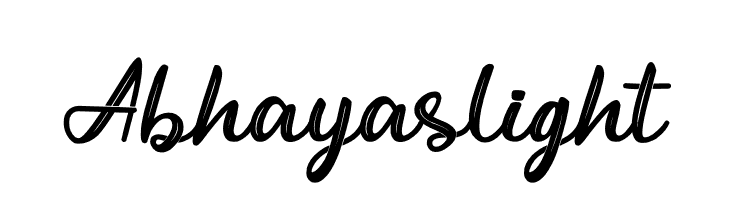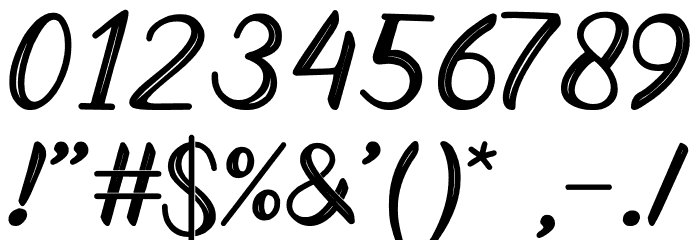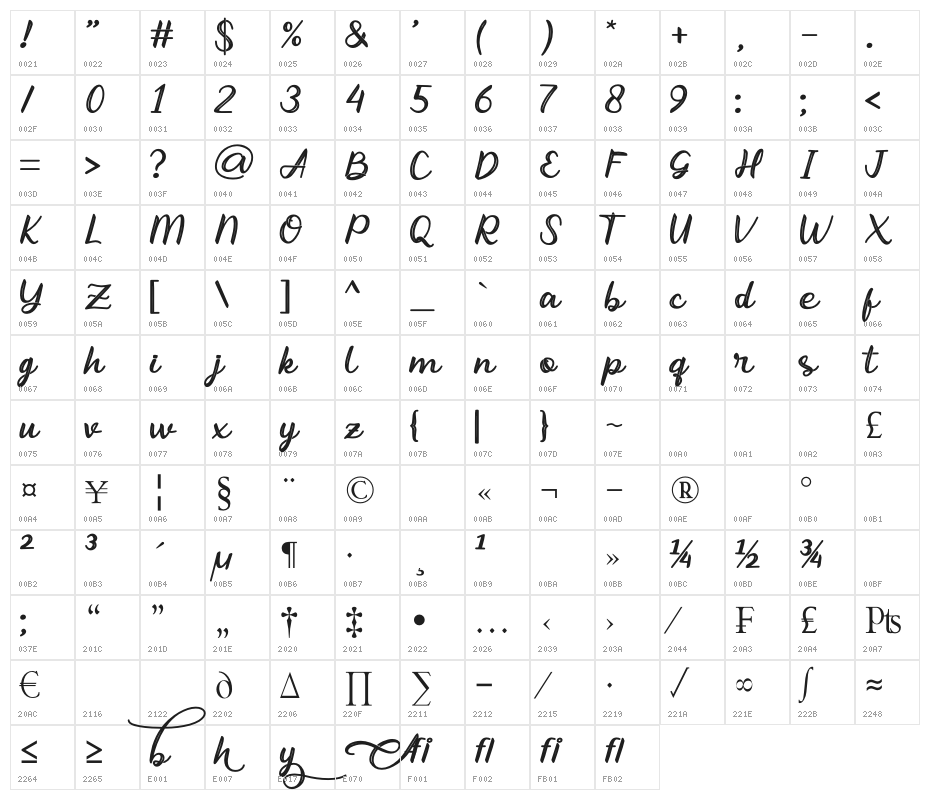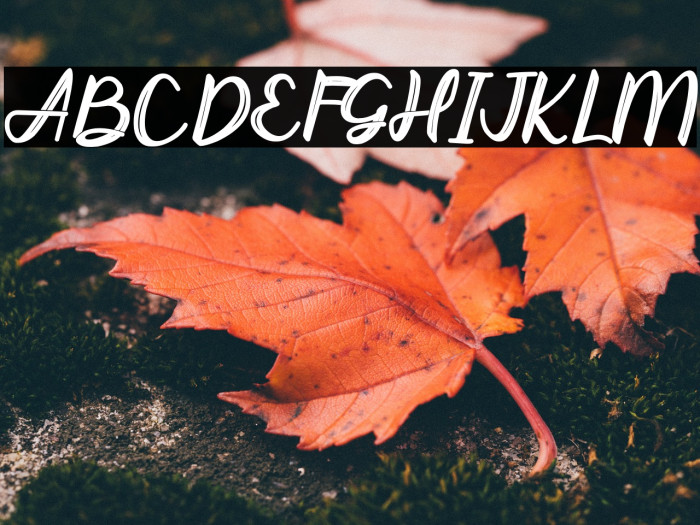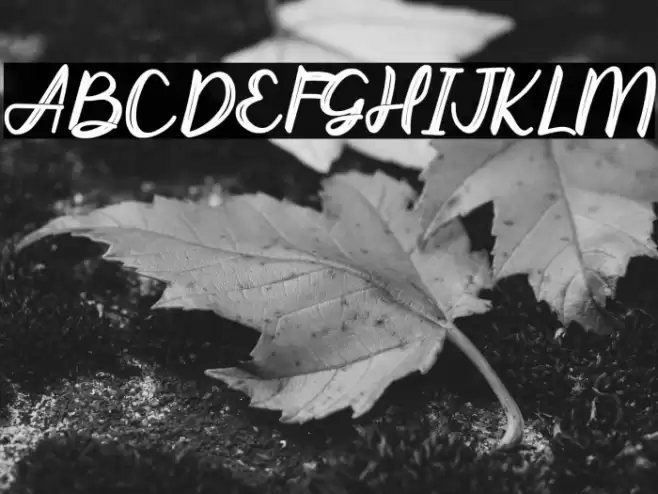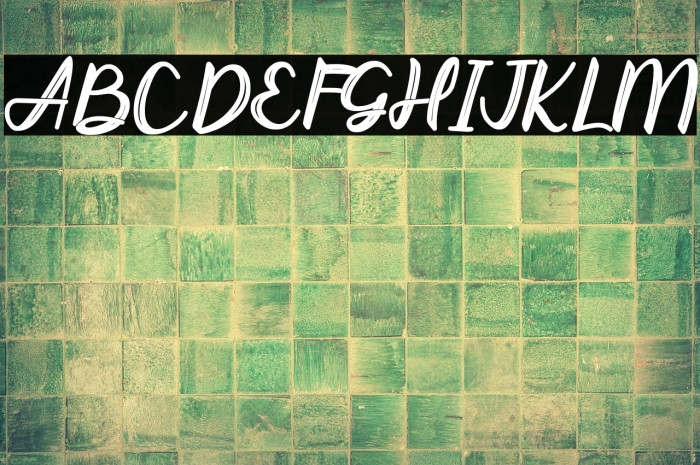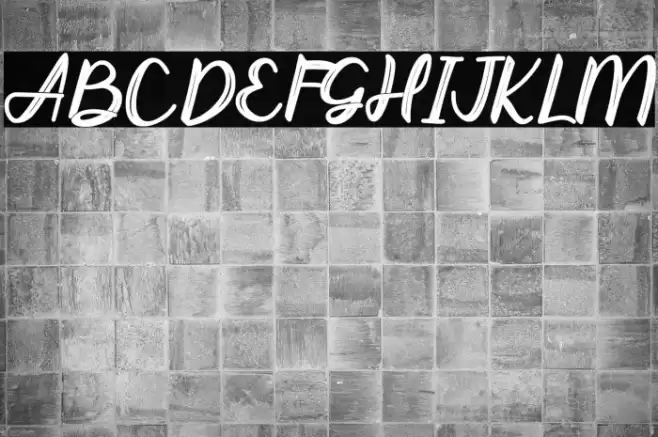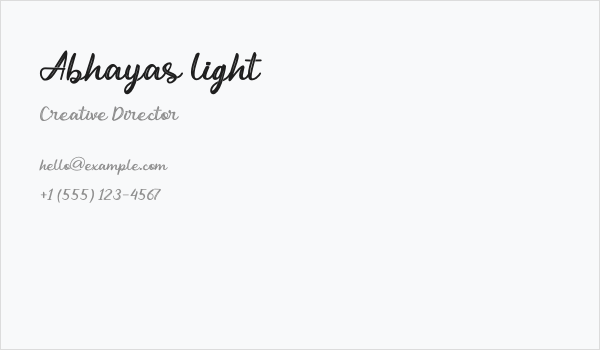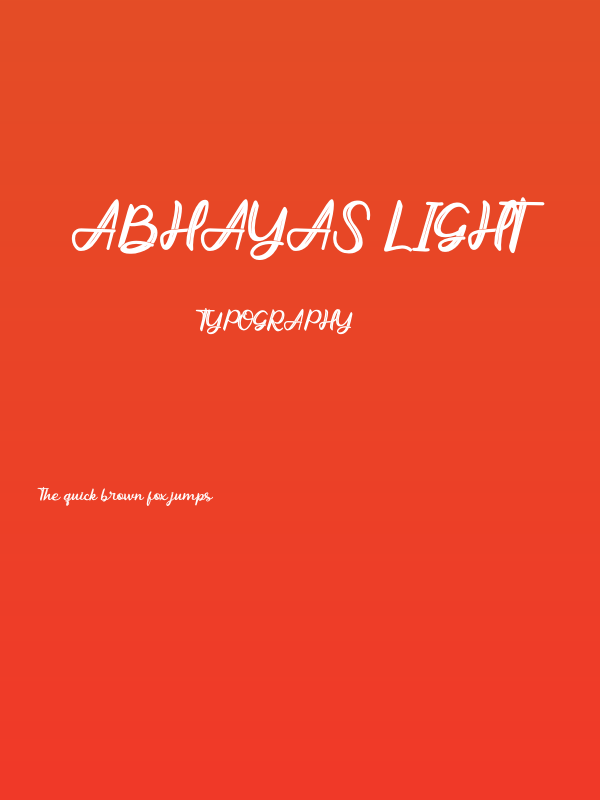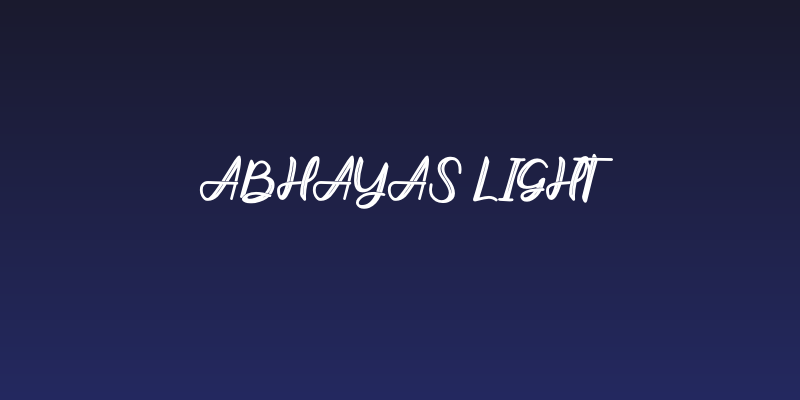
Abhayas light Font
Abhayas light Description
This font features a lively and flowing script style, characterized by its cursive and connected letterforms. The uppercase letters are bold and dynamic, with a slight slant that adds to their energetic appearance. The lowercase letters maintain a consistent flow, enhancing readability while preserving the script's elegant nature. Numbers and special characters are crafted with the same fluidity, ensuring a cohesive look across all text elements. The font's overall design is both playful and sophisticated, making it suitable for a variety of creative applications.